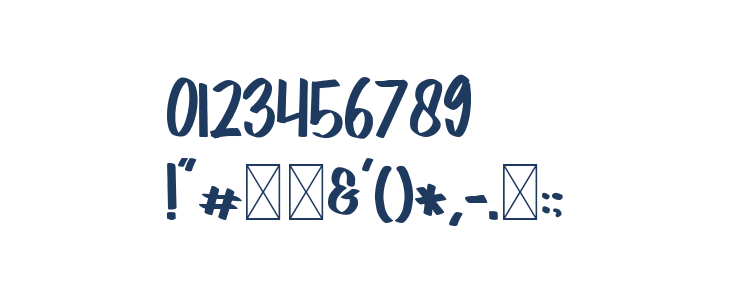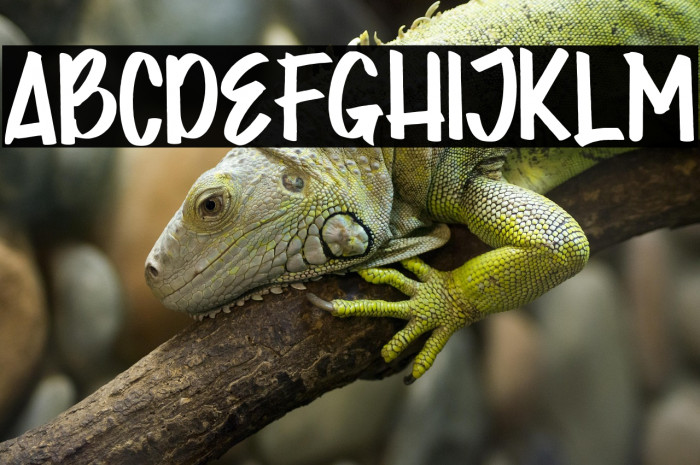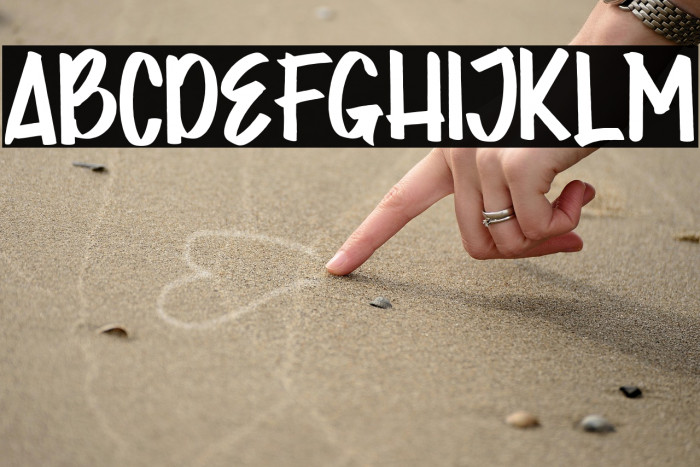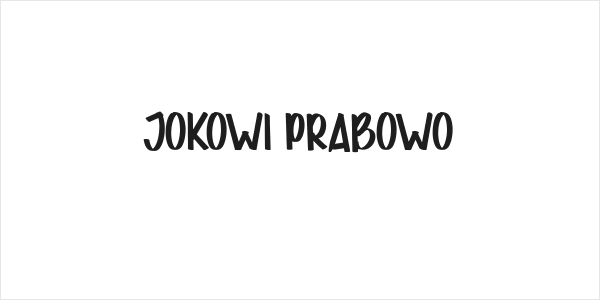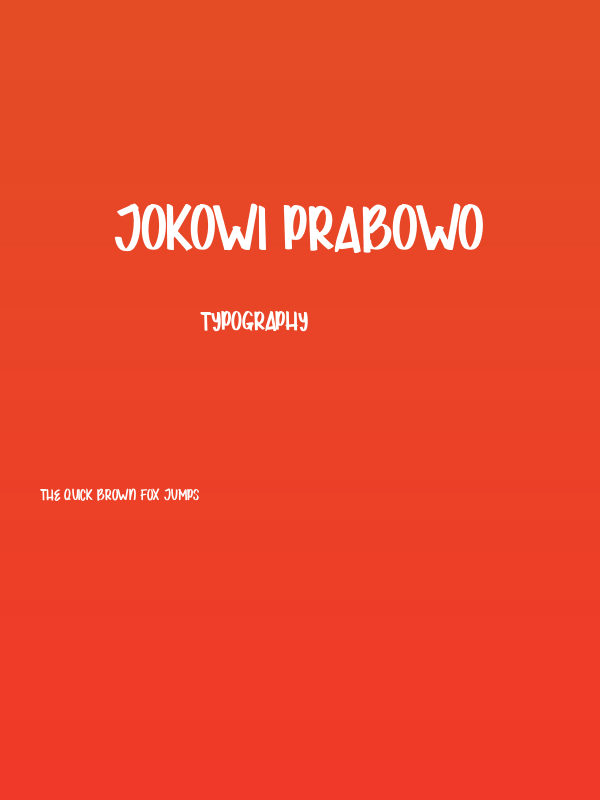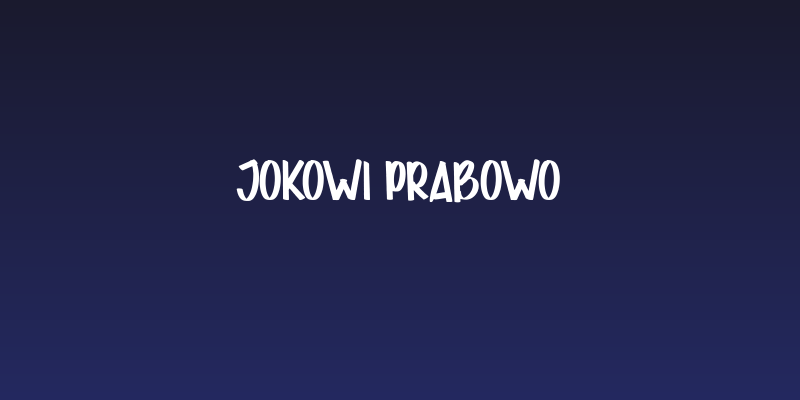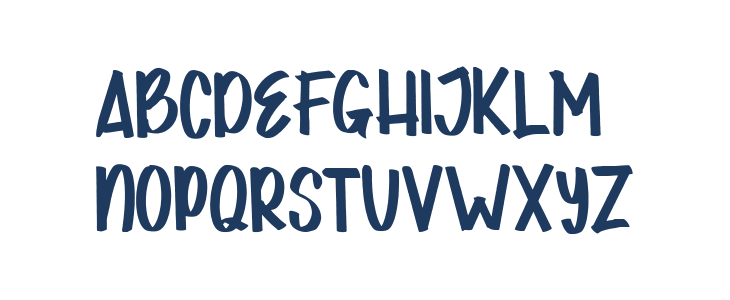
JOKOWI PRABOWO Font
JOKOWI PRABOWO Description
This font features a bold and playful handwritten style, characterized by its thick strokes and slightly irregular shapes. The uppercase and lowercase letters maintain a consistent height, giving it a cohesive appearance. The numerals and special characters follow the same playful aesthetic, making it suitable for informal and creative projects. Its boldness ensures readability while the unique character shapes add a touch of personality.
| Proposed Projects | Ideal for children's books, playful branding, casual invitations, and creative posters. |